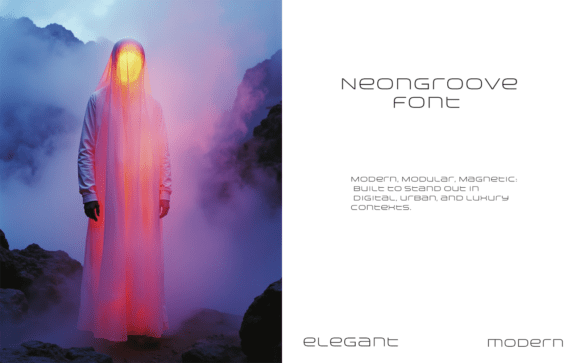
Introduction to Neongroove Font
You’ve spent hours crafting the perfect design, but something’s missing – that one element that elevates your creative project from great to show-stopping. For many designers, it’s the perfect font. And when you need a typeface that screams ‘attention-grabbing’, look no further than the Neongroove Font.
With its sleek lines and vibrant aesthetic, the Neongroove Font is the ultimate design resource for anyone looking to make a statement. Whether you’re working on a high-quality digital campaign or a fashion brand’s latest runway invite, this font is sure to turn heads. Its transparent background and customizable design options make it the perfect choice for designers looking to add a touch of sophistication to their work.
Key Features of Neongroove Font
- Unique blend of futuristic and retro elements, ideal for creative projects that require a distinctive design resource.
- High-quality font with a transparent background, allowing for seamless integration with any design or background.
- Includes a wide range of characters, including uppercase and lowercase letters, numbers, and special characters.
- Designed to be highly legible, even at small font sizes, making it perfect for use in a variety of applications, from signage to web design.
- Resolution-independent, ensuring that the font looks great at any resolution, from low-resolution displays to high-resolution prints.
- Perfect for designers looking for a bold, eye-catching font to add a touch of creativity to their projects.
Honest Review: Neongroove Font
I recently stumbled upon the Neongroove Font while searching for a design resource to enhance my creative project. I was immediately drawn to its unique, futuristic aesthetic and high quality design.
Here are some features that stood out to me:
- ✨ High-quality design that’s perfect for creative projects.
- ✨ Transparent background, making it easy to use with any image or background.
While the Neongroove Font is a great addition to any designer’s toolkit, there are a few limitations to consider:
- ⚠️ Limited font styles and weights, which may not be suitable for projects requiring a wide range of font variations.
- ⚠️ Not ideal for projects requiring a more traditional or classic font style.
Tips for Getting the Most Out of Neongroove Font
For the best results, use the Neongroove Font in a high-quality design setting, such as a creative project that requires a unique and eye-catching font. You can also experiment with different font sizes and colors to create a custom look.
Common Use Cases for Neongroove Font
The Neongroove Font is perfect for designing eye-catching titles, headings, and other text elements. It’s also great for creating a cohesive brand identity or adding a touch of personality to your creative project. With its high-quality design and transparent background, the Neongroove Font is a valuable addition to any design resource.